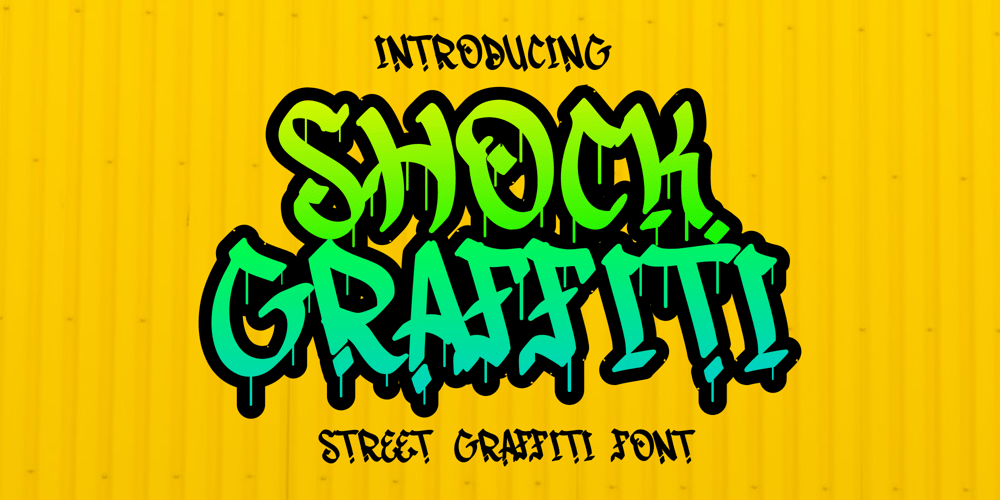
Shock Graffiti Font Family was designed by Nur Rohman Rizki and published by Riasyletter_Studio. Shock Graffiti contains 1 styles and family package options. Want to add an urban touch to your designs? Try using the Shock Graffiti font! This font offers a distinctive writing style and is very suitable for urban and street-themed designs. With Shock Graffiti, you can bring a strong and bold impression to every design you create.Shock Graffiti comes with a complete set of letters and fine details, so you can customize your design better. This font is also very easy to use and compatible with various design applications. Suitable for use in posters, merchandise, or even in t-shirt and hoodie designs.Get Shock Graffiti now and become a daring design creator! Available at an affordable price and with flexible licensing, so you can use it without limits on your future projects.What’s Included : – More than 200 of glyphs ( include Uppercase, Lowercase, Numerals & Punctuations ) – multilingual support – Works on PC & Mac – Simple installations – Accessible in the Adobe Illustrator, Adobe Photoshop, Adobe InDesign, even work on Microsoft Word. – PUA Encoded Characters (fully accessible without additional design software)Support For Language :Albanian, Basque, Breton, Chamorro, Danish, Dutch, English, Faroese, Finnish, French, Frisian, Galician, Italian, Malagasy, Norwegian, Portuguese, Spanish, Alsatian, Aragonese, Arapaho, Arrernte, Asturian, Aymara, Bislama, Cebuano, Corsican, Fijian, French_creole, Genoese, Gilbertese, Greenlandic, Haitian_creole, Hiligaynon, Hmong, Hopi, Ibanag, Iloko_ilokano, Indonesian, Interglossa_glosa, Interlingua, Irish_gaelic, Jerriais, Lojban, Lombard, Luxembourgeois, Manx, Mohawk, Norfolk_pitcairnese, Occitan, Oromo, Pangasinan, Papiamento, Piedmontese, Potawatomi, Rhaeto-romance, Romansh, Rotokas, Sami_lule, Samoan, Sardinian, Scots_gaelic, Seychelles_creole, Shona, Sicilian, Somali, Southern_ndebele, Swahili, Swati_swazi, Tagalog_filipino_pilipino, Tetum, Tok_pisin, Uyghur_latinized, Volapuk, Walloon, Warlpiri, Xhosa, Yapese, Zulu, Latinbasic, Ubasic, Demo